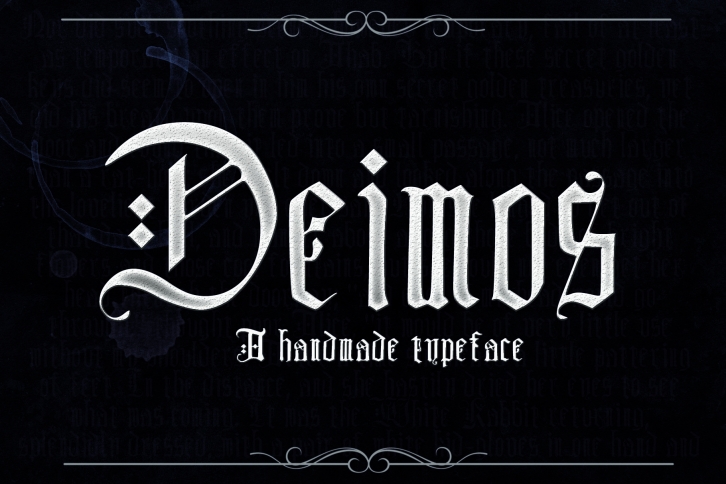
DEIMOS, a Blackletter Typeface is a beautiful font that was designed by Dene Studios. It's a great choice for designers and creatives who need such a font. It was released on September 5, 2019 and the file size is 17.53 MB. DEIMOS, a Blackletter Typeface may give a more youthful, expressive and casual look to your project. It is a very beautiful, refined, elegant, and high-quality font.